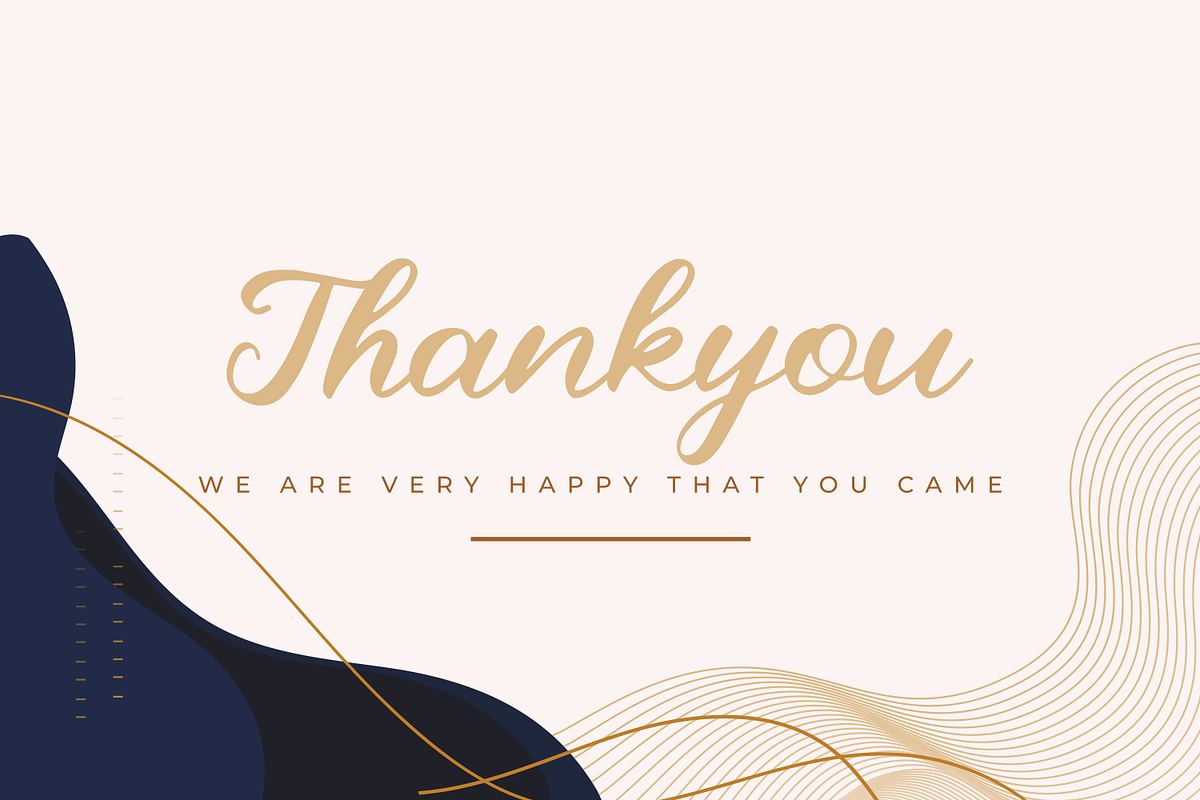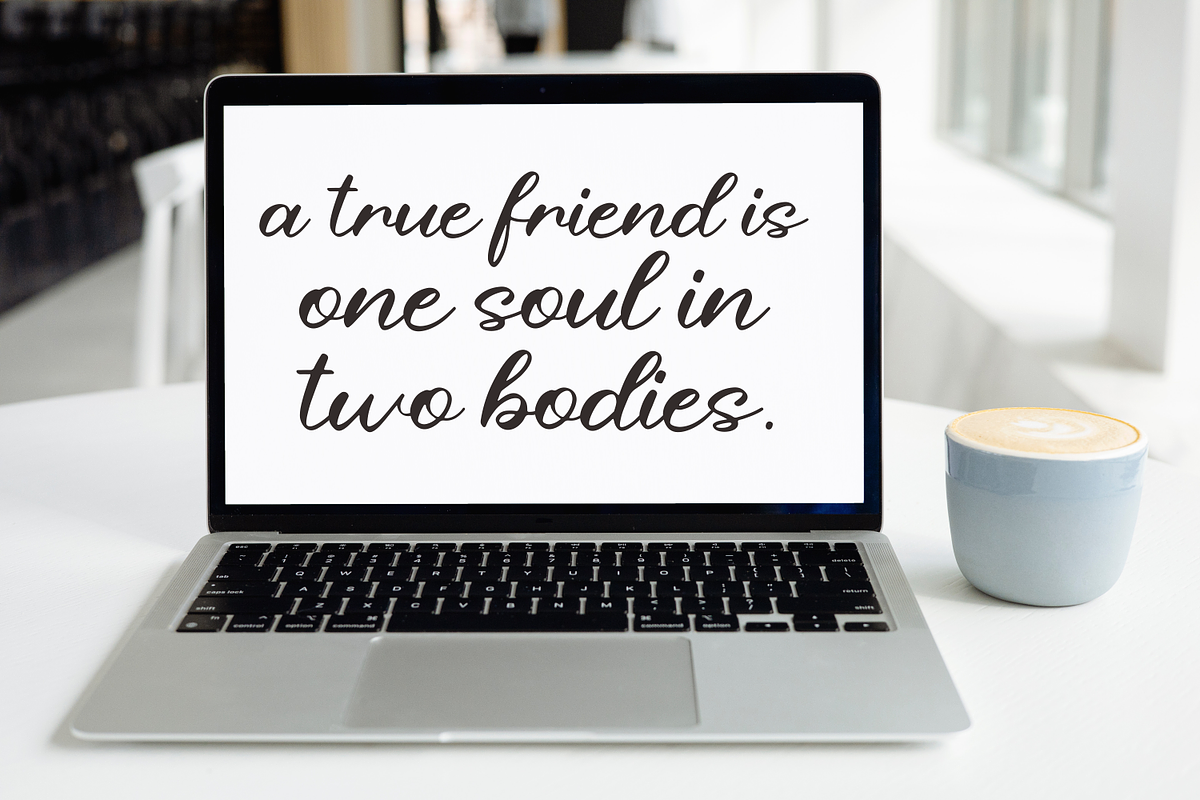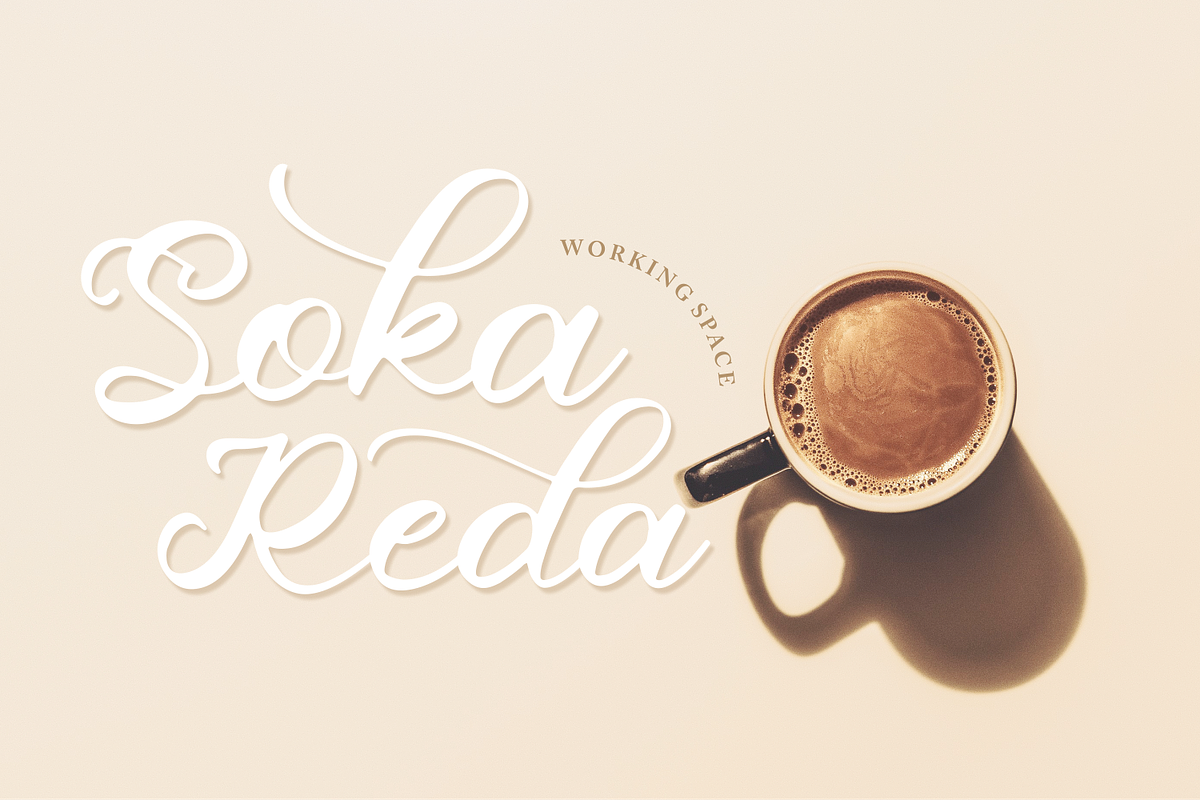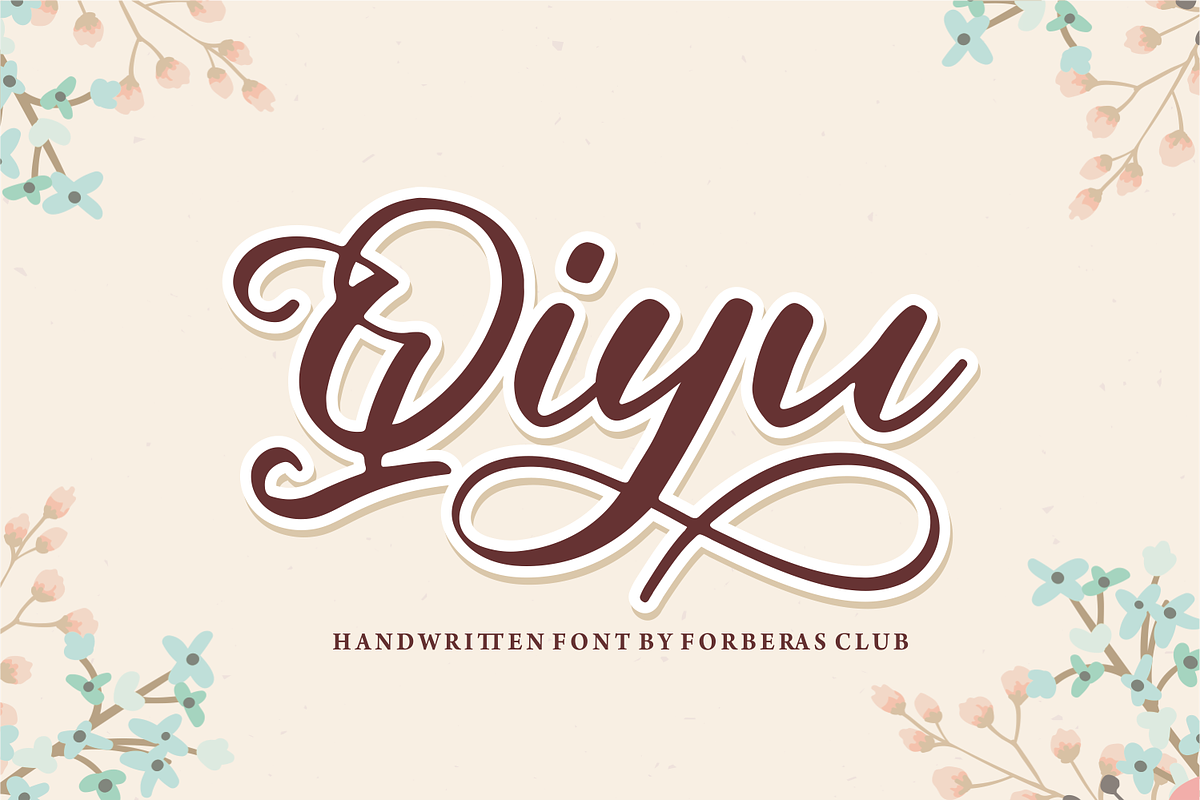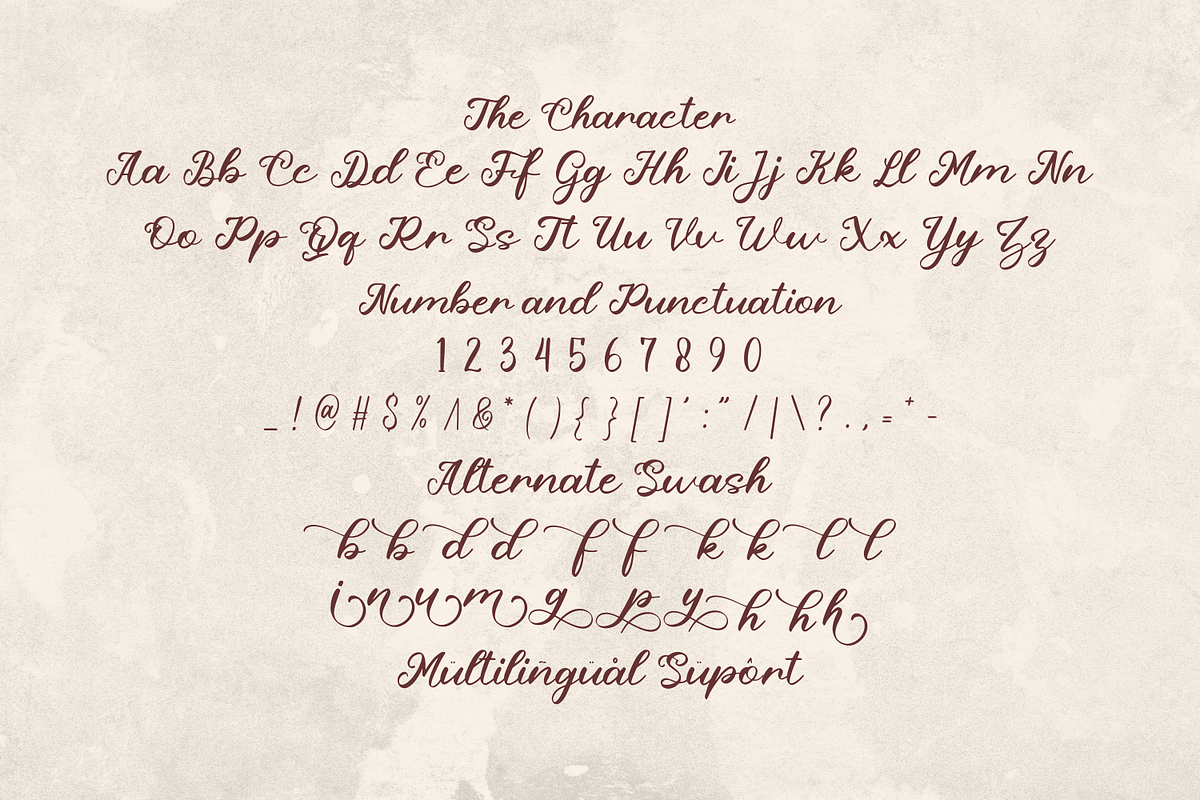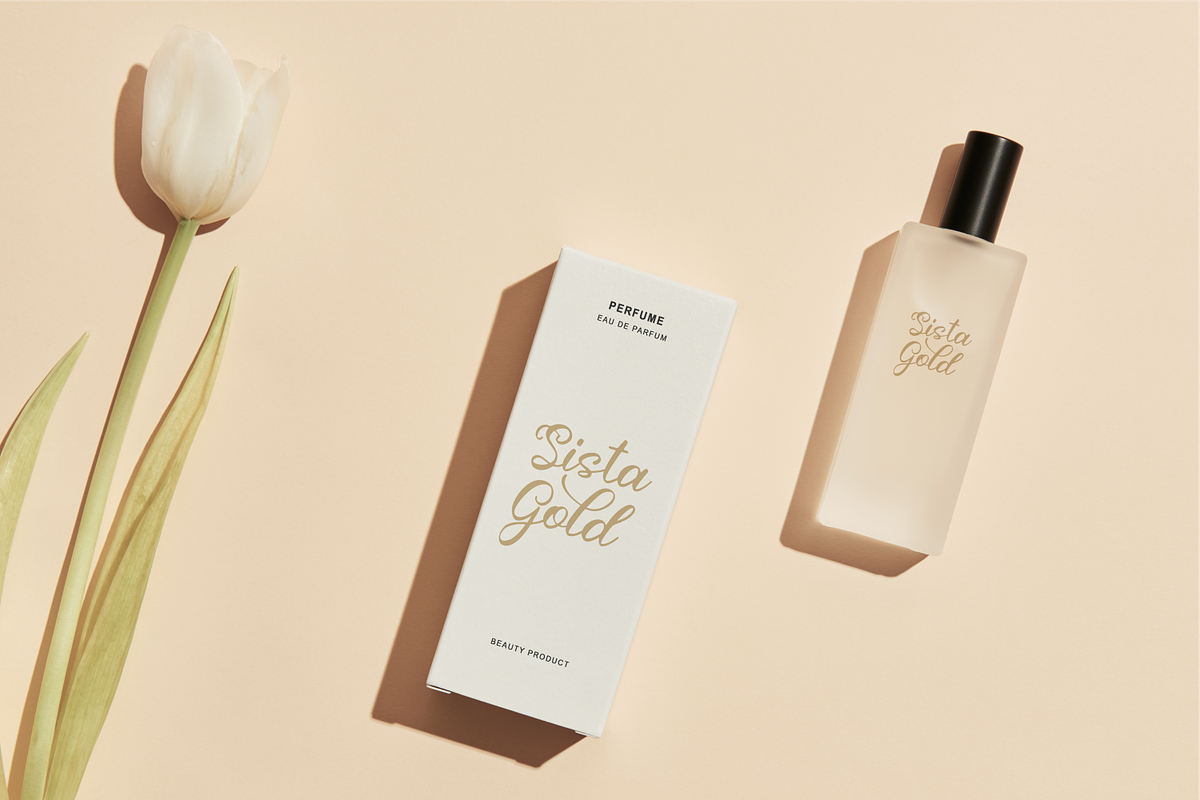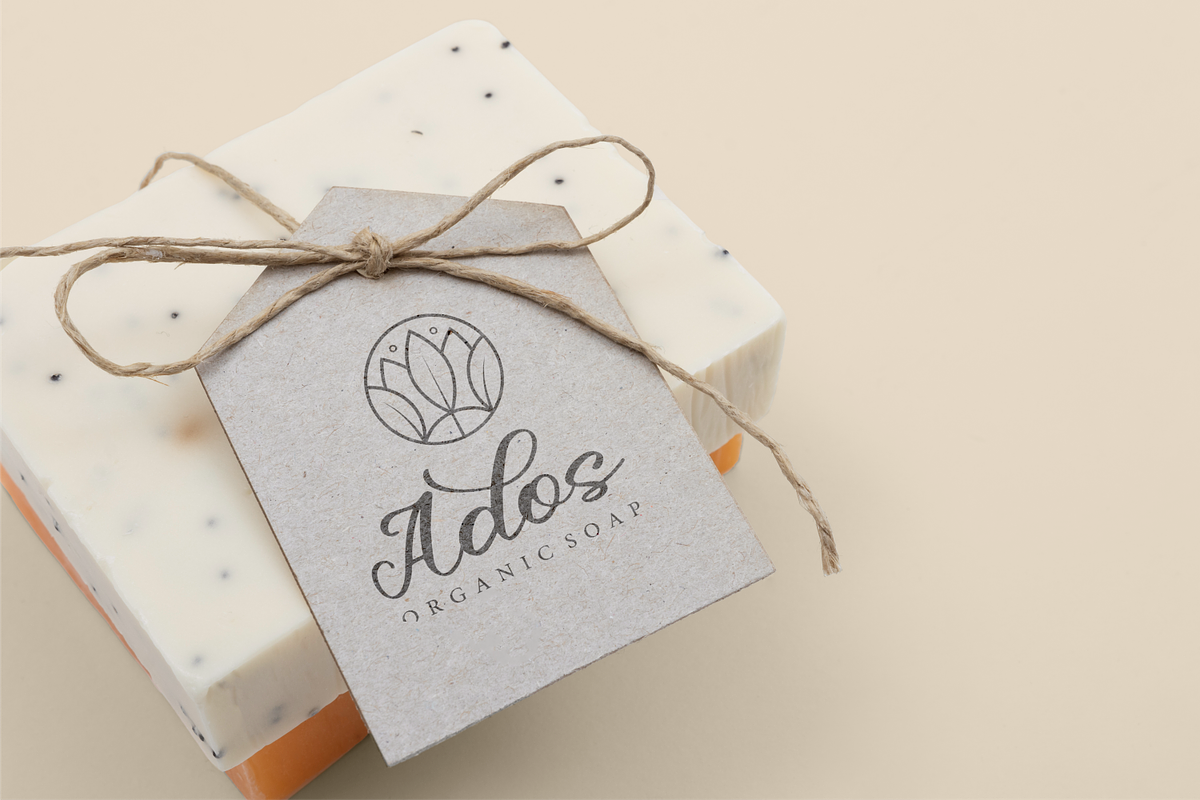
Qiyu Lust of Perfection
Introducing Qiyu by Forberas
Modern and beautiful handwritten script font! Great for wedding greeting cards, logos, branding materials, Invitation, business cards, quotes, posters, Cricut artwork and more!